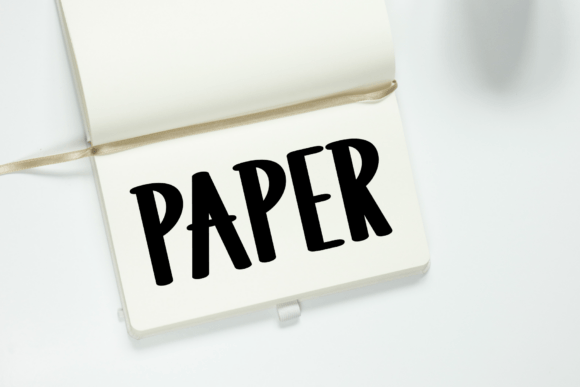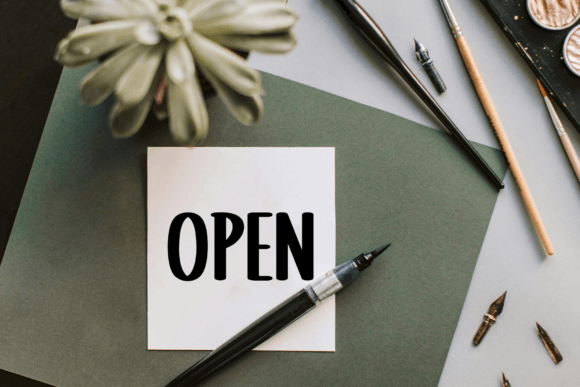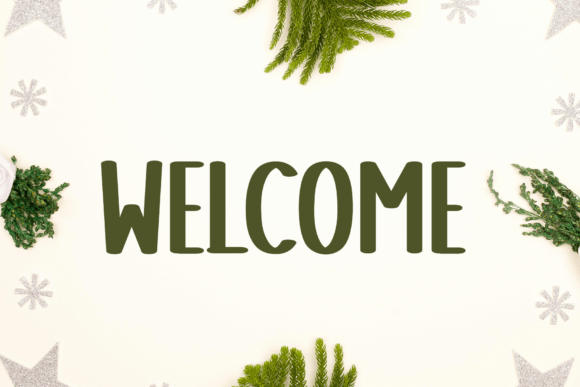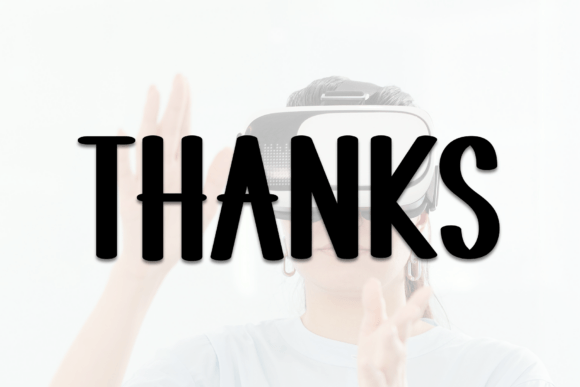
Introducing Digital Modern Font: The Perfect Blend of Elegance and Casualness
In the world of digital design, fonts play a crucial role in conveying the tone and personality of a brand. If you’re looking for a font that exudes luxury, elegance, and a touch of casualness, look no further than Digital Modern Font. This stunning handwritten font is designed to resemble writing with a marker, giving it a relaxed and sporty feel that’s perfect for a wide range of design applications.
What is Digital Modern Font?
Digital Modern Font is a unique and versatile typeface that combines the elegance of traditional handwriting with the casualness of modern digital design. Its marker-like strokes and fluid letterforms give it a distinctive look that’s both sophisticated and laid-back. Whether you’re designing a logo, creating wedding stationery, or crafting a marketing campaign, Digital Modern Font is the perfect choice.
Key Features of Digital Modern Font
- Handwritten with a marker feel: Digital Modern Font is designed to look like it was drawn with a marker, giving it a relaxed and sporty feel.
- Elegant and luxurious: Despite its casual feel, Digital Modern Font exudes luxury and elegance, making it perfect for high-end branding and design projects.
- Versatile: This font is suitable for a wide range of design applications, from logos and branding to wedding supplies, greeting cards, and marketing promotions.
- Casual and approachable: Digital Modern Font has a friendly and approachable vibe that’s perfect for designs that need to connect with a wider audience.
Use Cases for Digital Modern Font
Digital Modern Font is an incredibly versatile typeface that can be used in a variety of design projects. Here are some of the most popular use cases:
- Branding and logos: Create a lasting impression with a custom logo or brand identity that showcases your unique personality and style.
- Wedding supplies: Add a touch of elegance and sophistication to your wedding stationery, invitations, and decorations.
- Greeting cards: Create beautiful and heartfelt greeting cards for special occasions like birthdays, anniversaries, and holidays.
- Fashion and lookbooks: Showcase your fashion designs or create stunning lookbooks that highlight your brand’s style and aesthetic.
- Marketing promotions: Create eye-catching marketing materials like brochures, flyers, and social media graphics that grab attention and drive engagement.
Why Choose Digital Modern Font?
With so many fonts available, why choose Digital Modern Font? Here are just a few reasons why this font stands out:
- Unique and distinctive: Digital Modern Font has a one-of-a-kind look that’s sure to set your design apart from the crowd.
- Elegant and sophisticated: This font exudes luxury and elegance, making it perfect for high-end branding and design projects.
- Easy to read: Despite its elegant feel, Digital Modern Font is incredibly legible, making it perfect for body text and longer design projects.
- Highly versatile: This font can be used in a wide range of design applications, from digital design to print materials.
Digital Modern Font is a stunning and versatile typeface that’s perfect for designers and crafters looking to add a touch of elegance and sophistication to their designs. With its unique marker-like strokes, fluid letterforms, and relaxed feel, this font is sure to elevate your design projects and help you connect with your audience. Whether you’re creating a custom logo, designing wedding stationery, or crafting marketing materials, Digital Modern Font is the perfect choice.